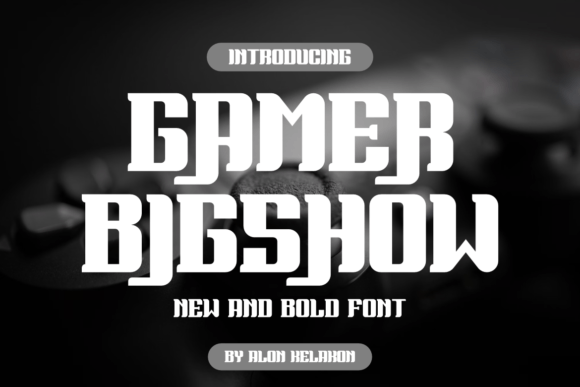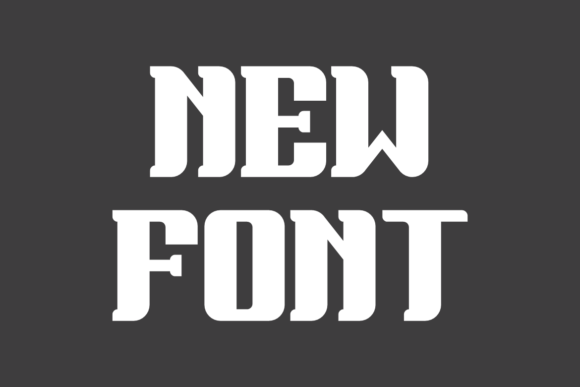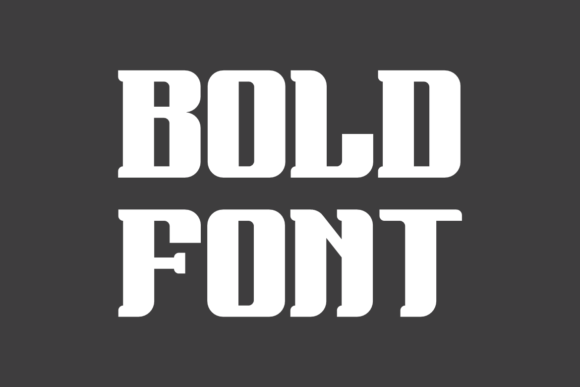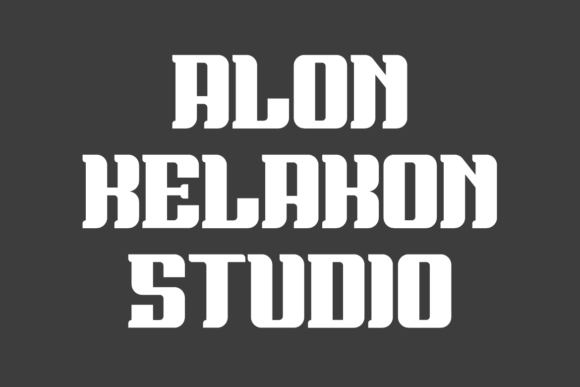
Gamer Bigshow Font
About the Gamer Bigshow Font
Discover the charm of Gamer Bigshow Font. This font is a perfect blend of modern aesthetics and classic appeal. Gamer Bigshow is a bold and assertive serif font. No matter the topic, this font will be an incredible asset to your fonts’ library, as it has the potential to elevate any creation.
Gamer Bigshow excels in large-scale applications such as headlines, posters, and branding projects where a strong, commanding presence is desired. Its bold serifs make it ideal for grabbing attention, but its weight makes it unsuitable for body text or UI elements requiring high readability. Avoid using it for long paragraphs or small sizes.
The font’s assertive personality pairs well with clean sans-serif fonts like Open Sans or Montserrat for a balanced contrast. For a more playful feel, consider pairing it with a rounded geometric sans-serif. Conversely, a delicate script font could add a touch of unexpected elegance, softening the boldness of Gamer Bigshow.
Gamer Bigshow projects a bold, powerful, and slightly rebellious personality. It’s a perfect fit for brands targeting a younger demographic interested in gaming, sports, or action-oriented themes. Its assertive style lends itself well to projects that demand immediate attention and impact.
Gamer Bigshow Font Usage Examples
Gamer Bigshow Font Example